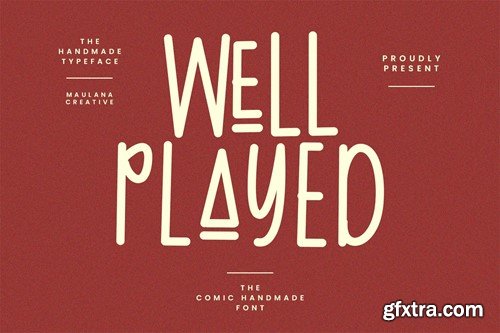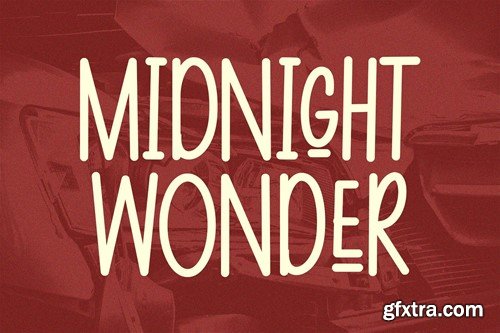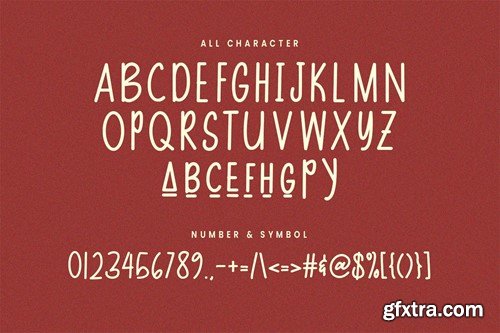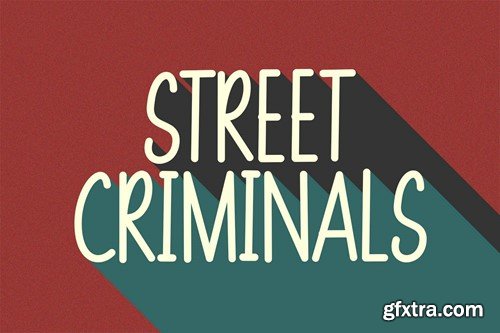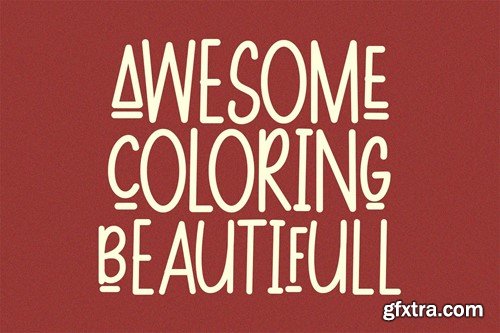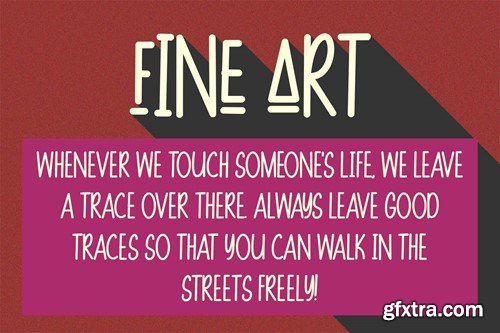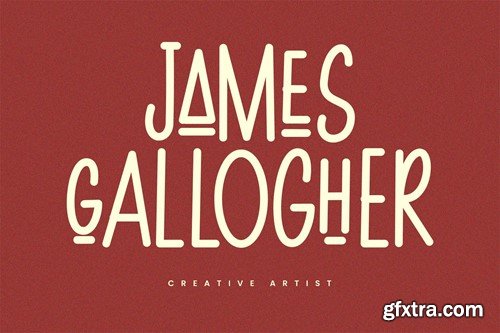
Well Played Handmade Display Font
Well Played font. Heavy stroke, fun character with a alternates. To give you an extra creative work, Well Played font support multilingual language. This font is good for logo design, Social media, Movie Titles, Books Titles, a short text even a long text letter and good for your secondary text font with script or serif. Make a stunning work with Well Played font. What you get: